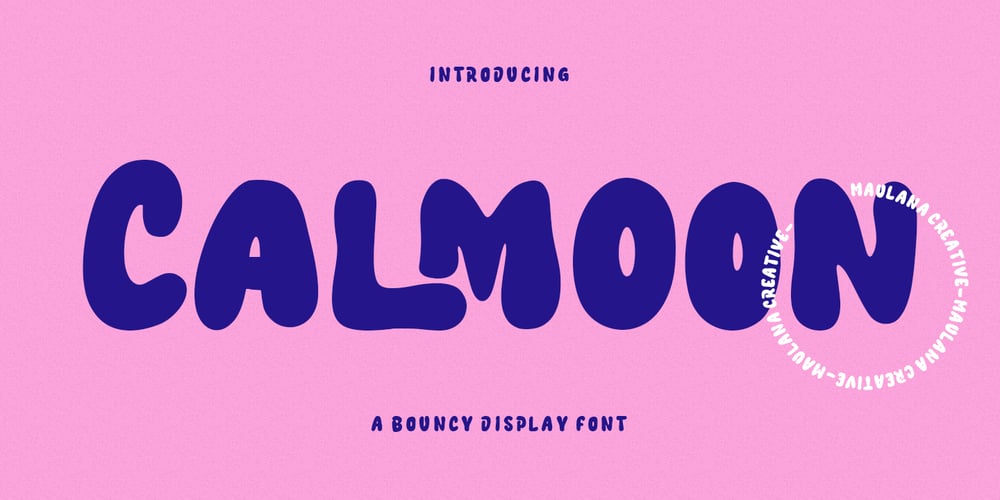
Calmoon Font Family was designed by Gilang Maulana and published by Maulana Creative. Calmoon contains 1 styles and family package options. Calmoon is a bouncy handwritten display font. With bold bulb stroke, fun character with a bit of ligatures. To give you an extra creative work. Calmoon font support multilingual more than 100+ language. This font is good for logo design, Social media, Movie Titles, Books Titles, a short text even a long text letter and good for your secondary text font with sans or serif. Make a stunning work with Calmoon font.Cheers, Maulana Creative